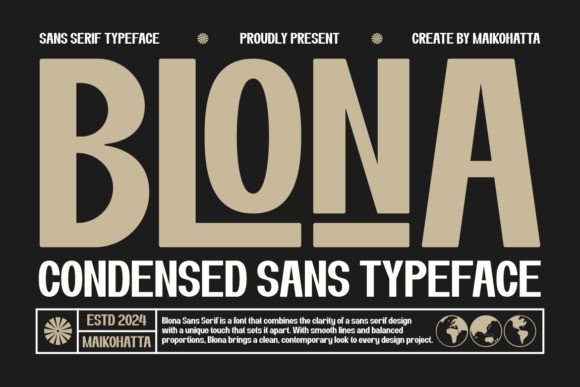
Blona Font
Designer: maikofarazhatta
Blona Font is a sleek, condensed sans-serif font designed for modern elegance and efficiency. Its clean lines and compact letterforms exude professionalism and versatility. Ideal for headlines, branding, and editorial design, Blona delivers a polished aesthetic while maximizing readability in various contexts. Simplify your typographic compositions with Blona’s understated sophistication.